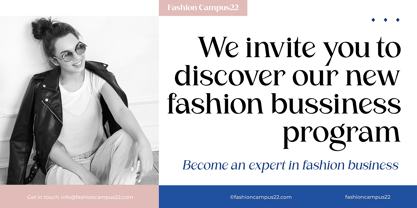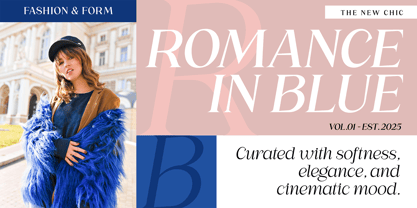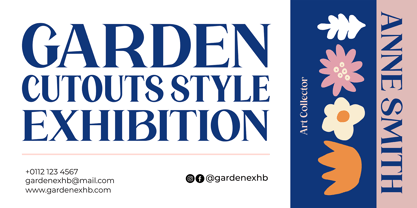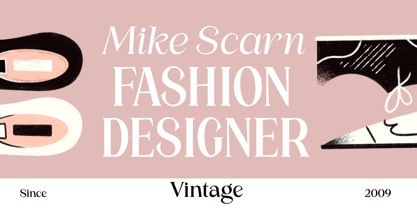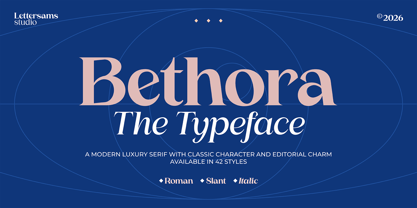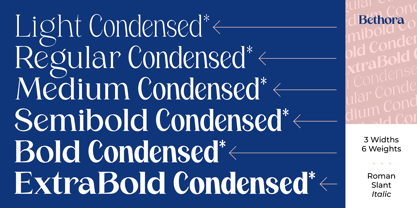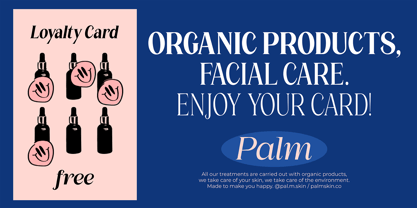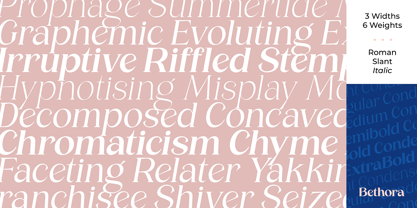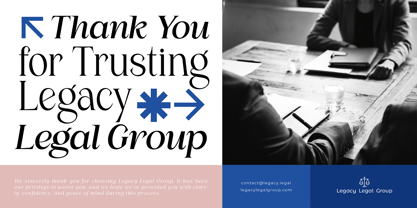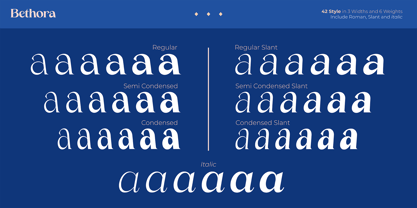
Bethora
by Lettersams
The Bethora Font Family was designed by Samsul Kamal and published by Lettersams. Bethora contains 44 styles and family package options. More about this family
Bethora is a modern luxury serif typeface crafted to bring timeless elegance and sophisticated charm into every design. Inspired by high-end editorial aesthetics and classic fashion typography, Bethora combines graceful contrast, refined curves, and stylish italic details that instantly elevate your work with a premium look.
Designed with versatility in mind, Bethora comes with multiple widths and weights — from delicate Light to commanding Extra Bold — including Roman, Slant, and Italic styles. Whether you’re creating branding, magazine layouts, wedding invitations, packaging, logos, social media content, or luxury product presentations, Bethora delivers a confident and unforgettable visual presence.
Its condensed proportions create a sleek editorial rhythm, while the flowing italics add movement, romance, and expressive sophistication. Every letter is carefully balanced to produce a clean, fashionable, and highly professional appearance.
Bethora is more than just a typeface — it’s a statement of elegance, confidence, and modern sophistication. Create designs that feel exclusive, classy, and effortlessly memorable with Bethora Typeface.
Designers: Samsul Kamal
Foundry: Lettersams